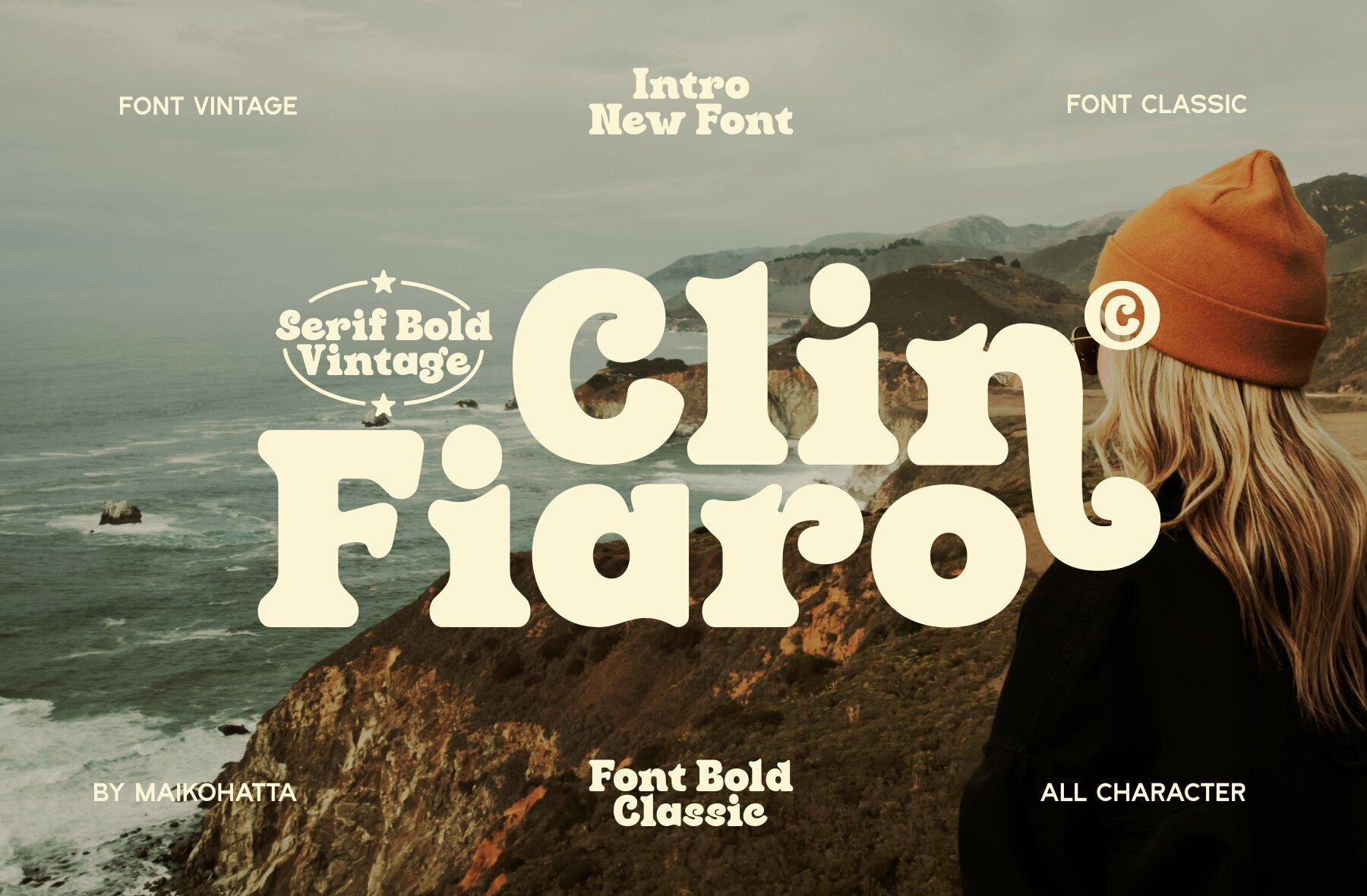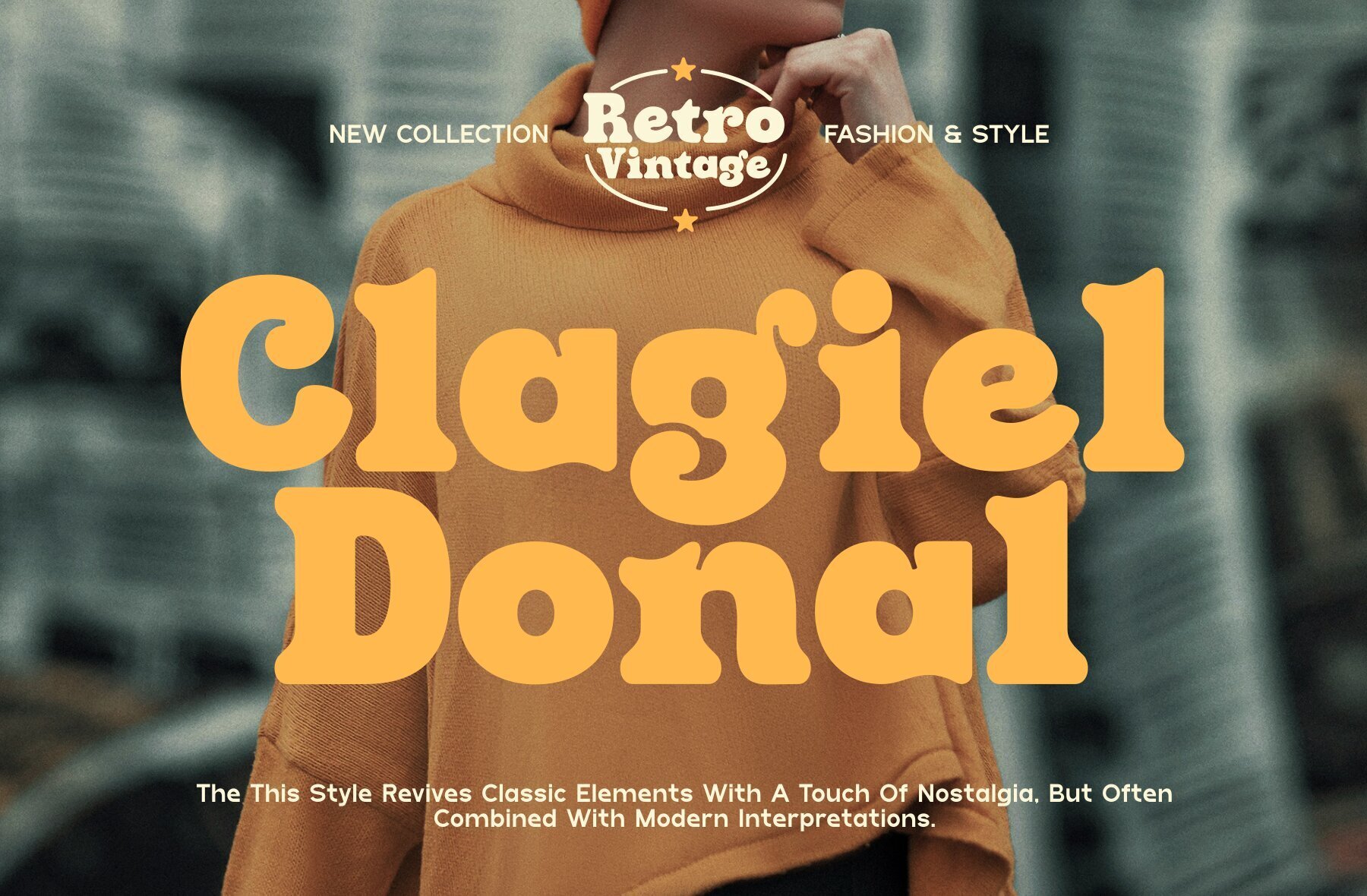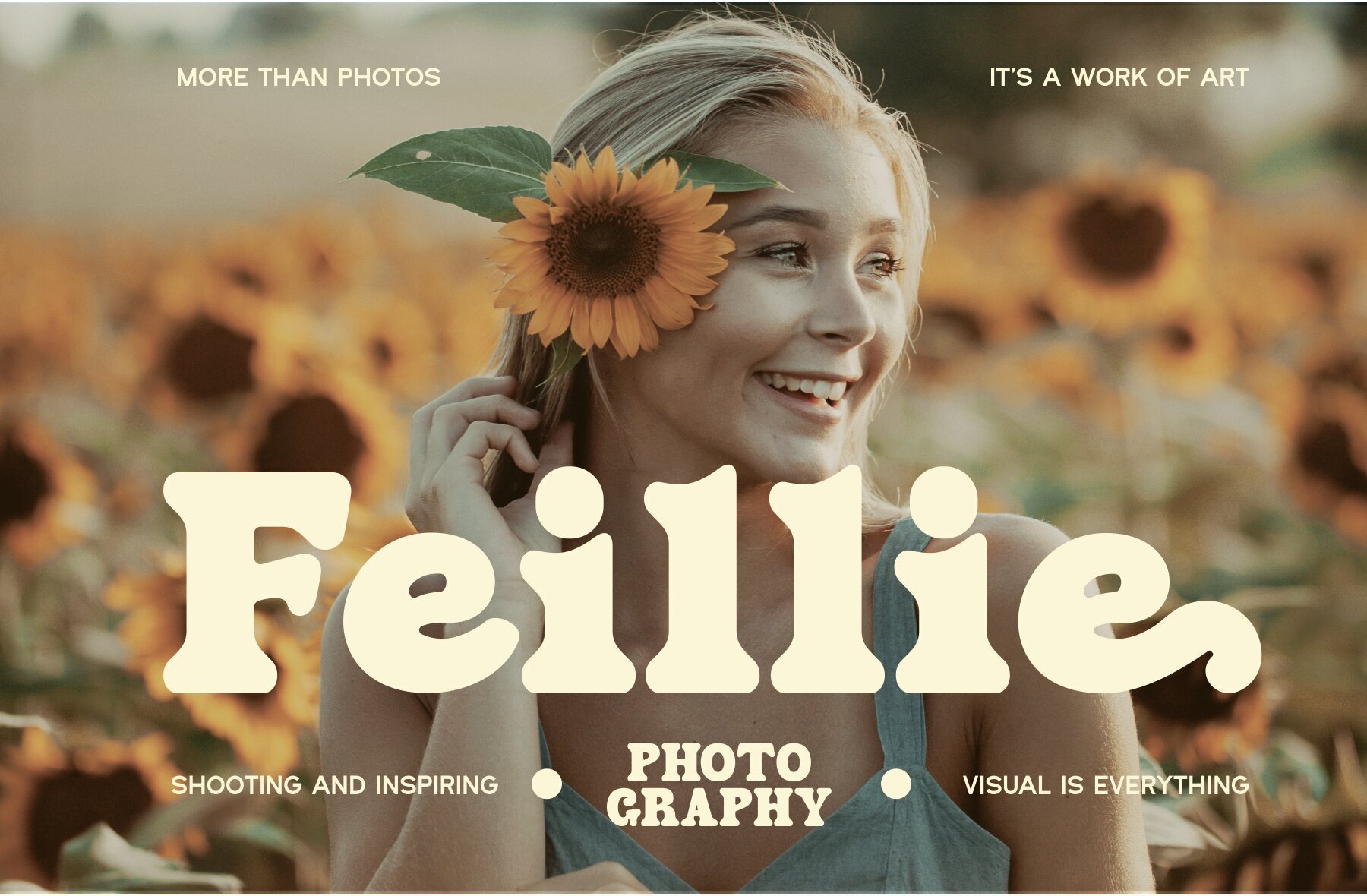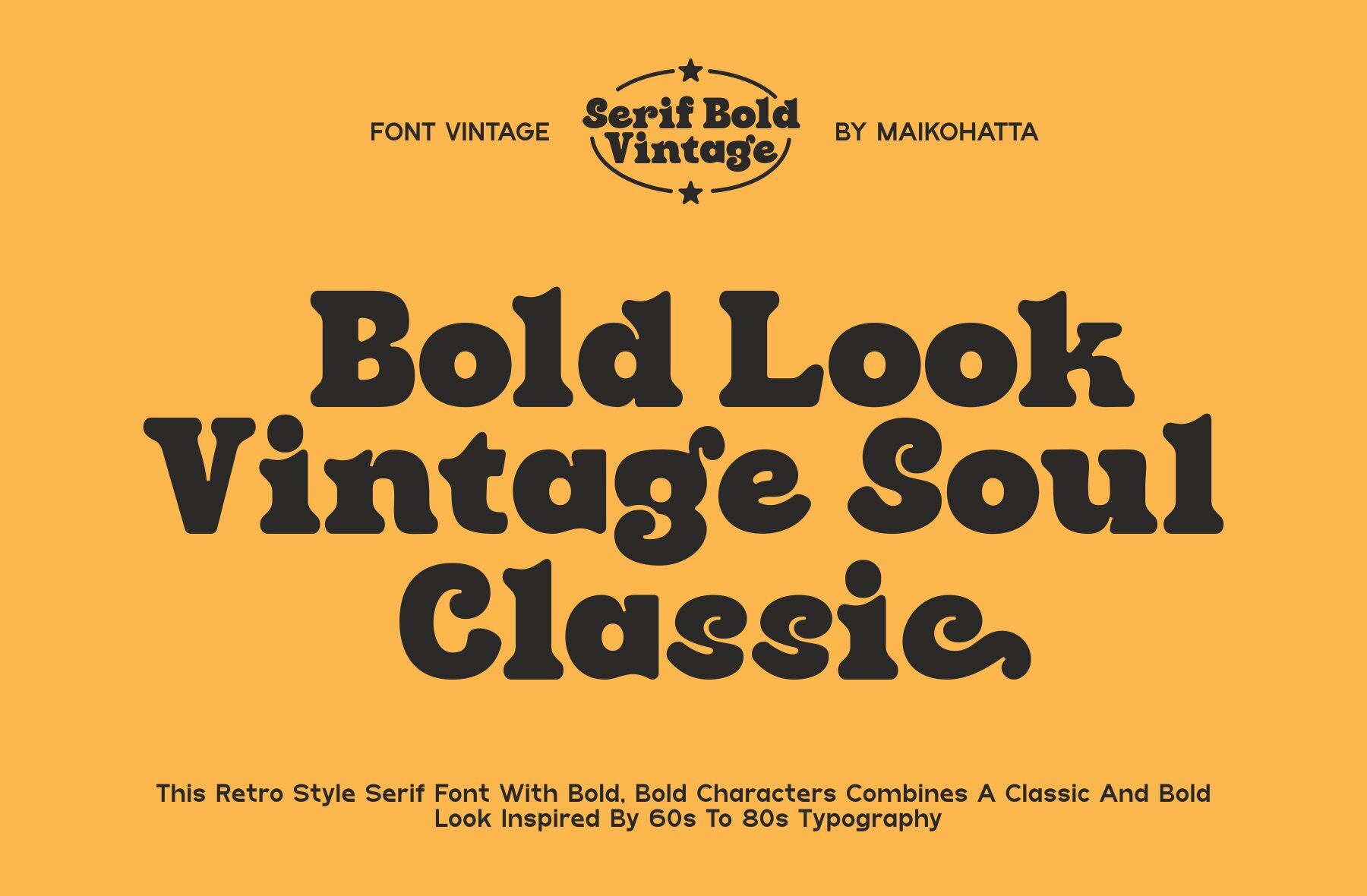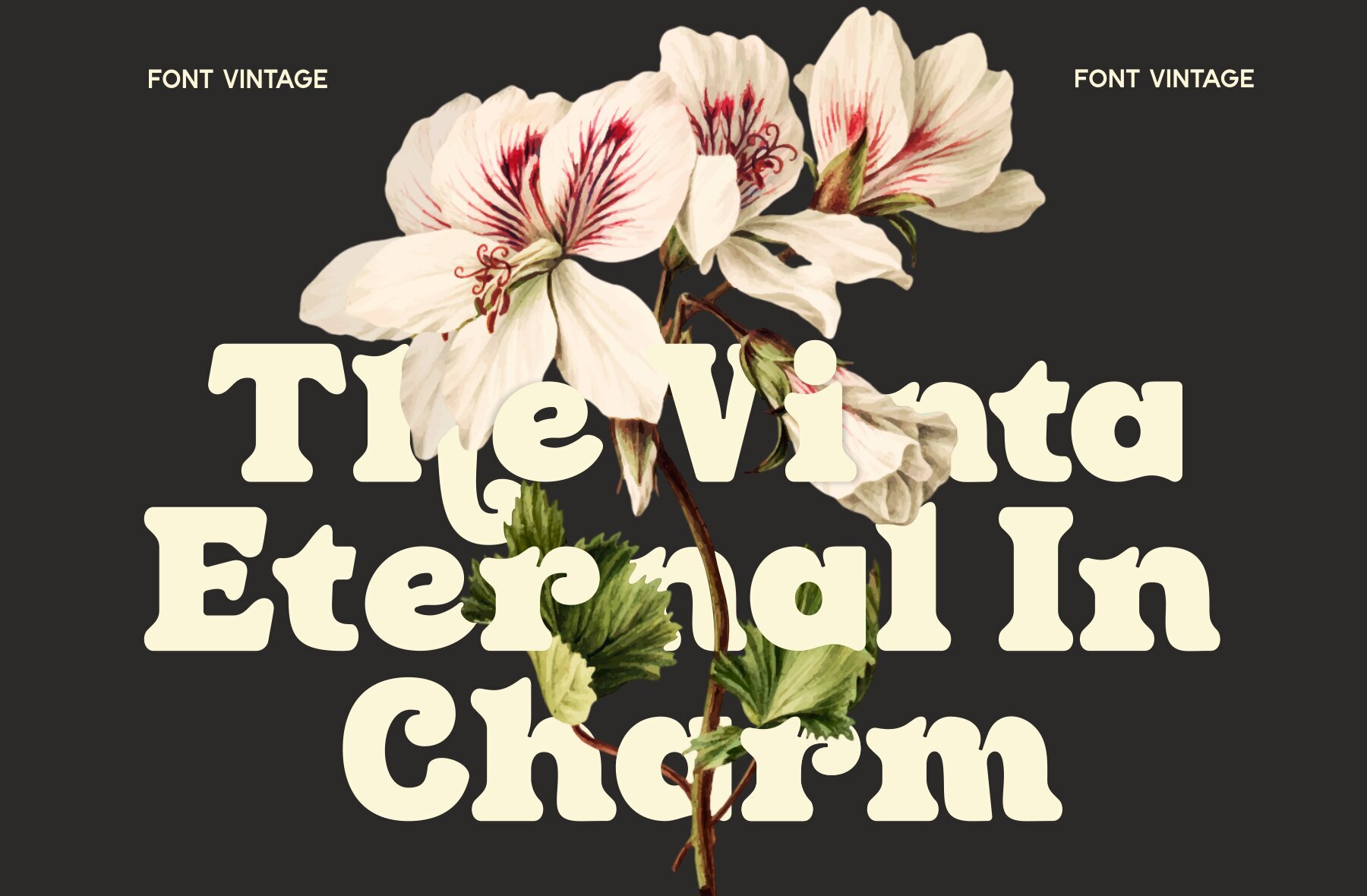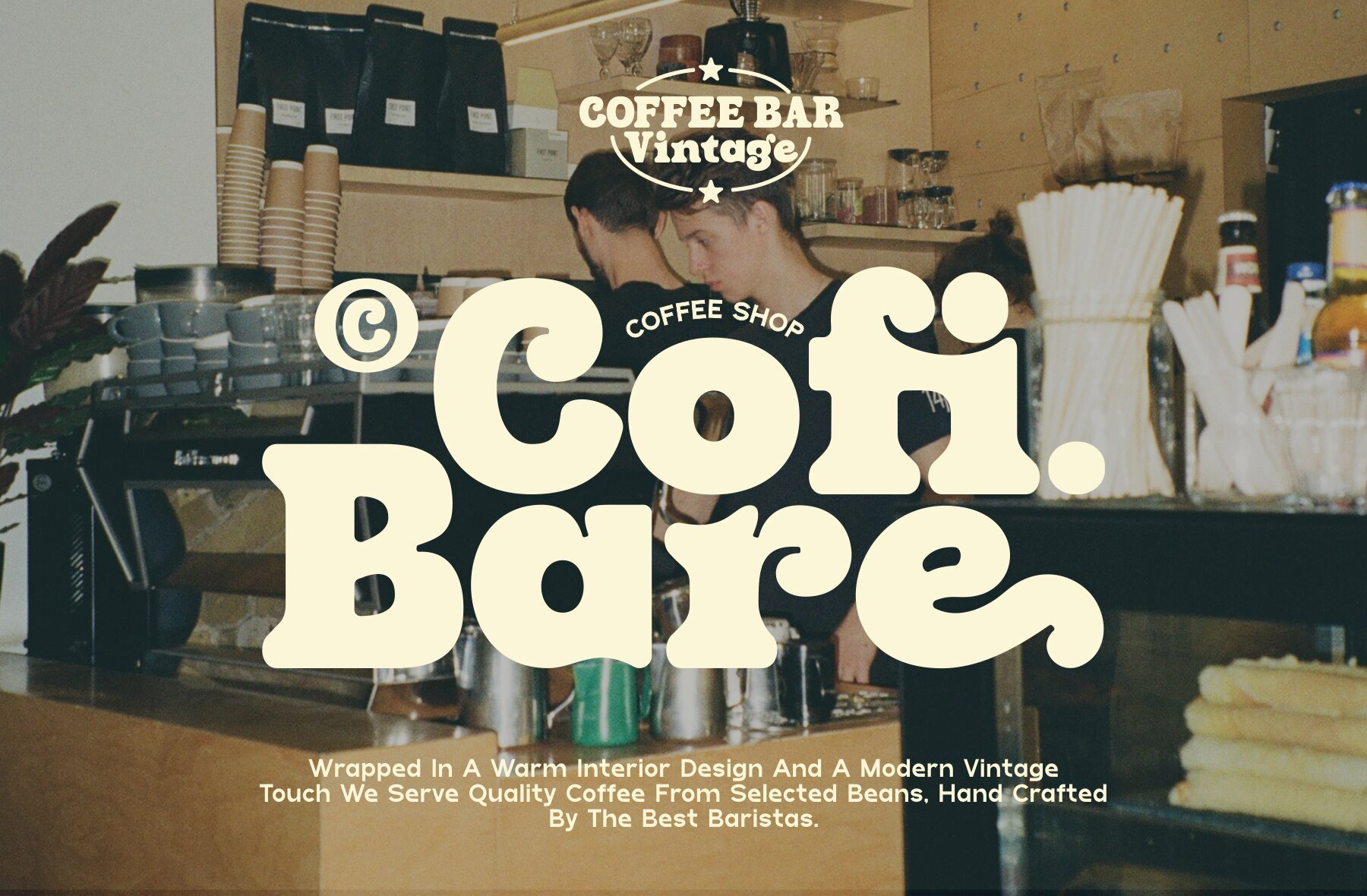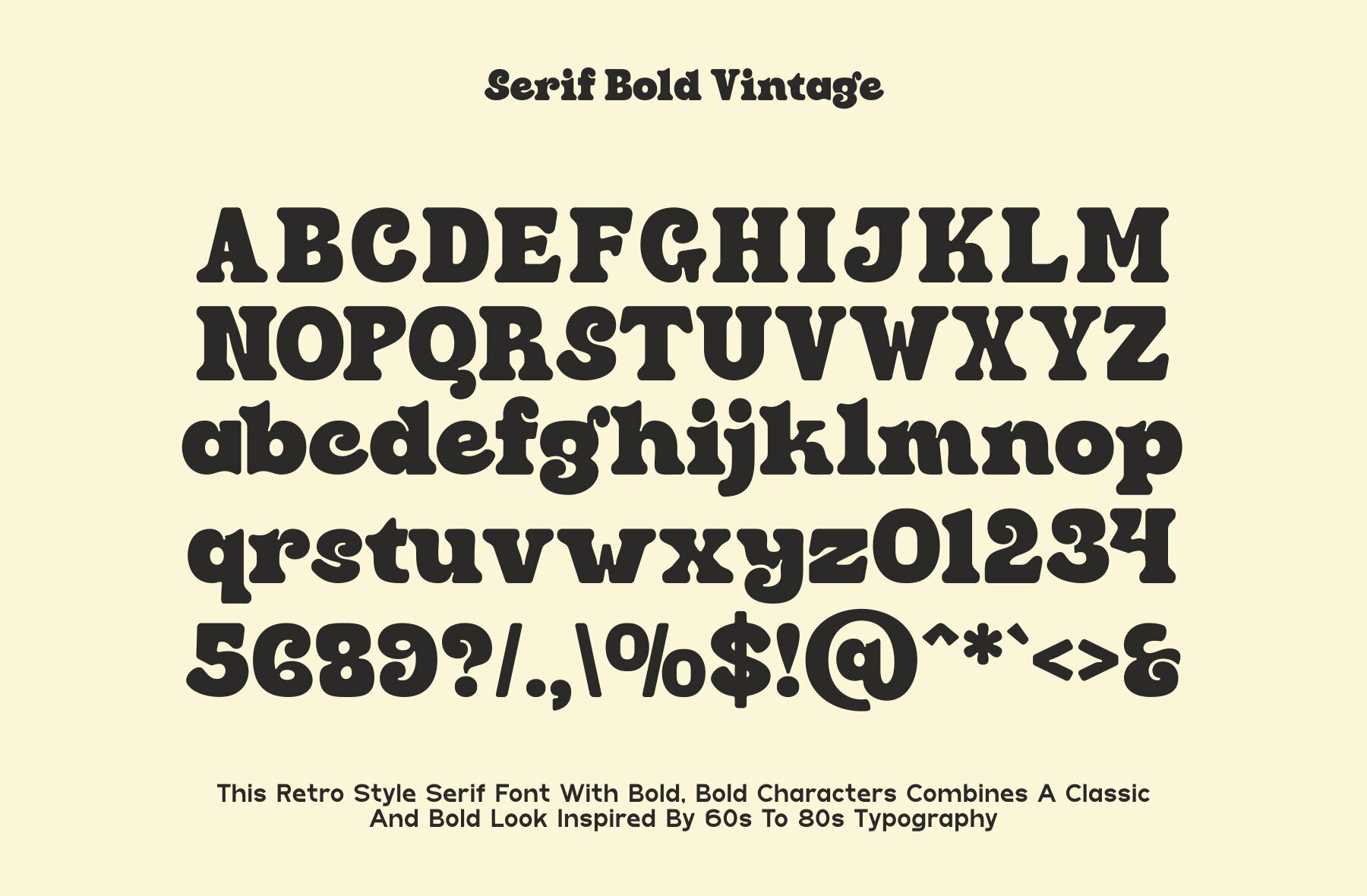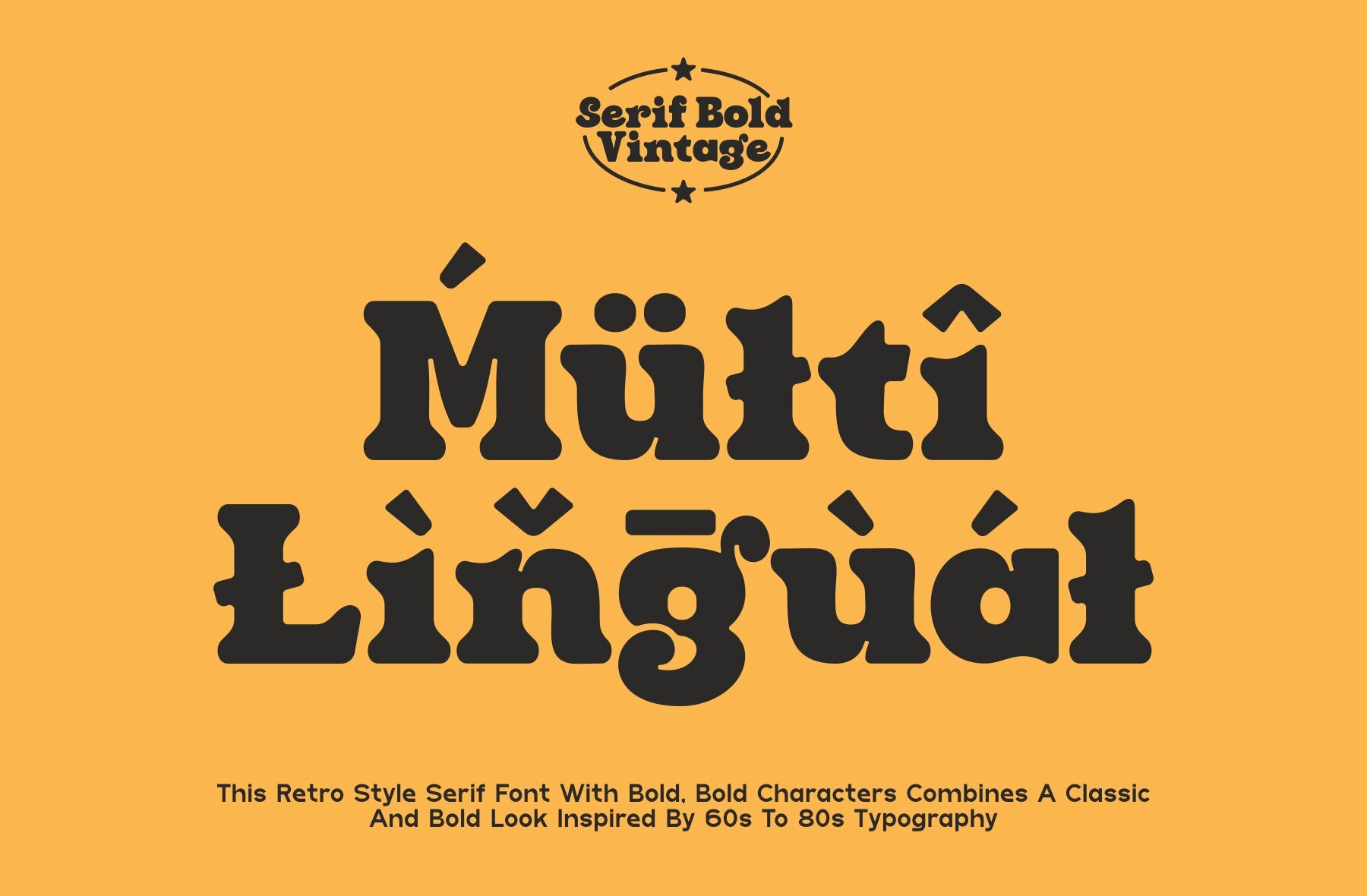
Clin Fiaro Font
Clin Fiaro
The Clin Fiaro font offers a harmonious blend of boldness and fine detail, perfect for creating visually appealing and easy-to-read designs. This modern serif typeface embodies a striking contrast between thick and thin lines, offering an elegance that subtly draws attention.Clin Fiaro: Bold Vintage Serif for Timeless Design